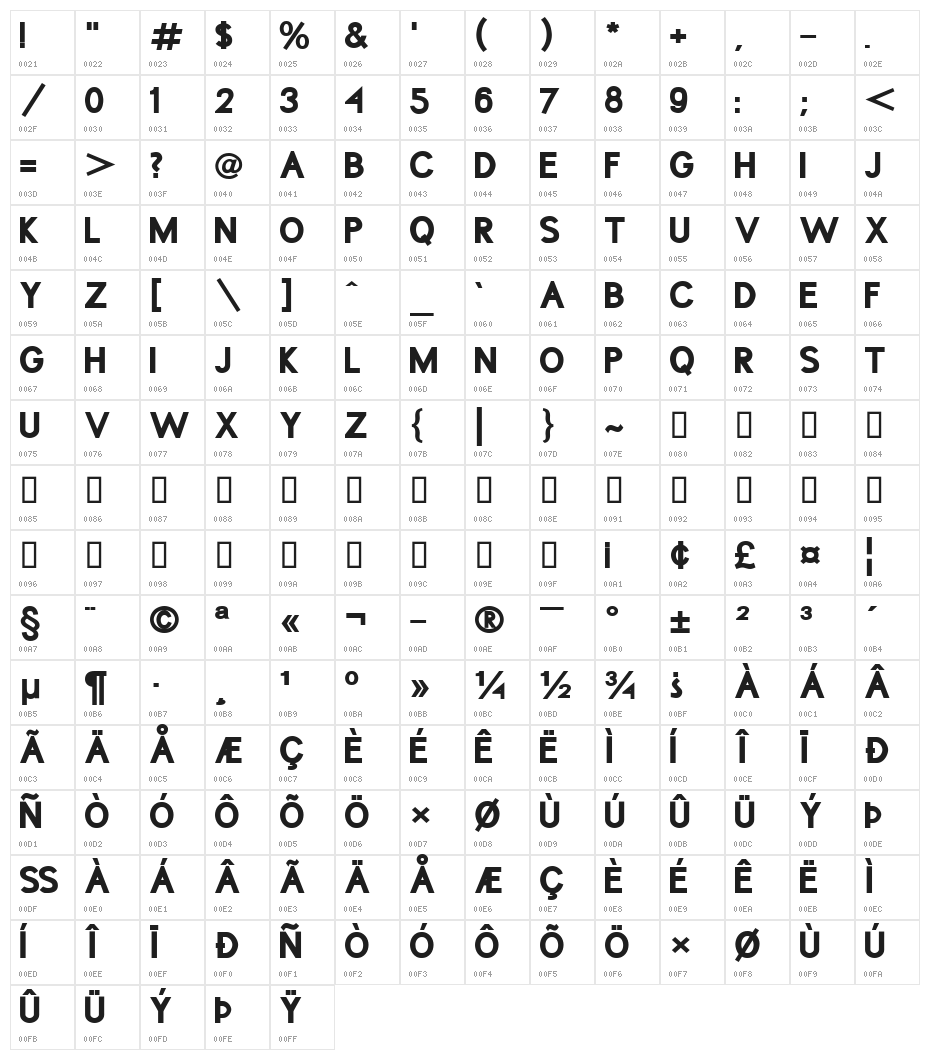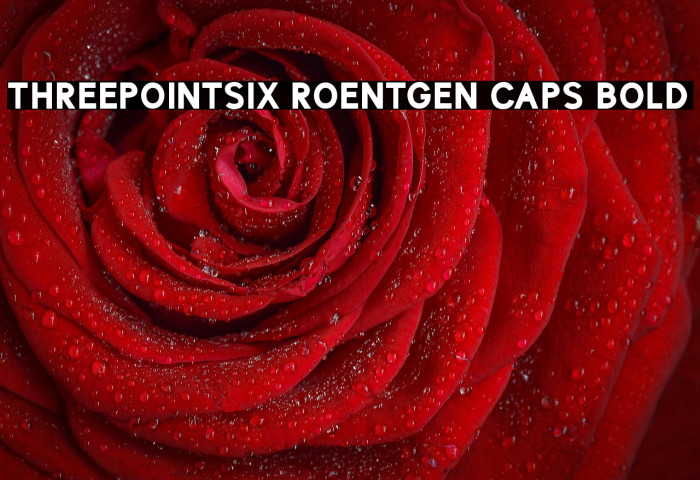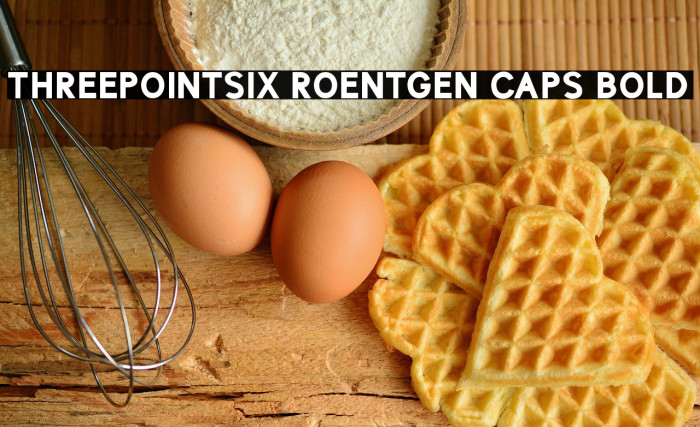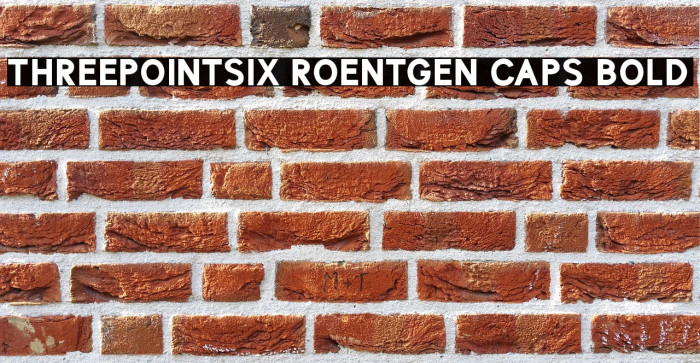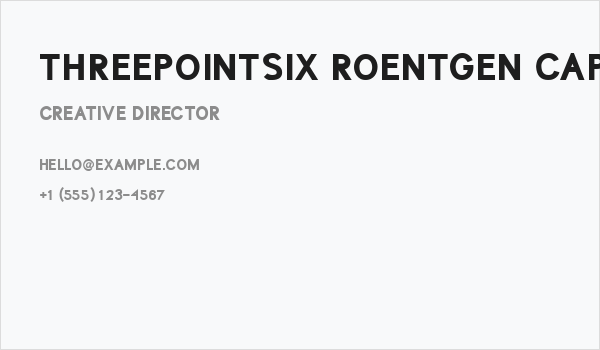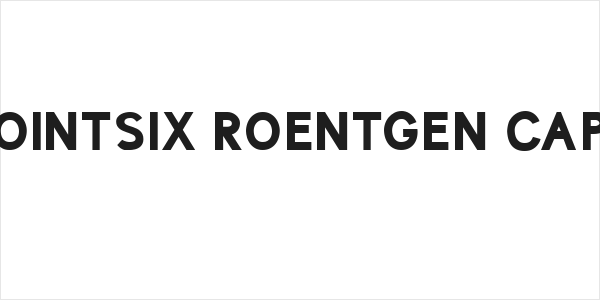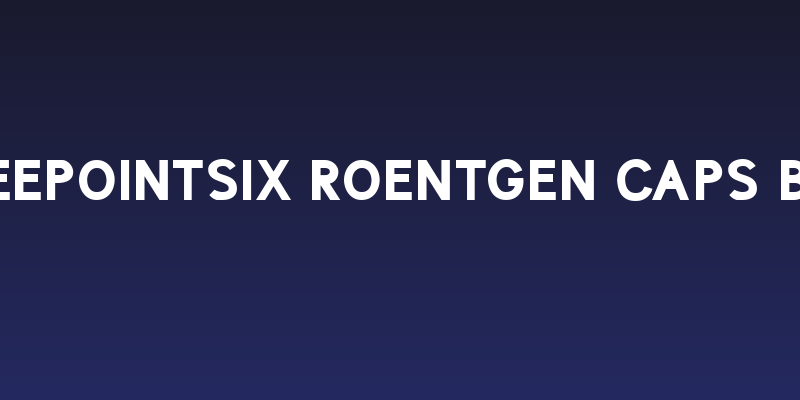
ThreePointSix Roentgen Caps Bold Font
ThreePointSix Roentgen Caps Bold Description
This font features bold, uppercase letters with a strong, geometric design. The characters are evenly spaced, providing a clean and modern appearance. The numbers and special characters maintain the same boldness and clarity, making them easily readable. The font's style is consistent across all characters, offering a cohesive look that is ideal for impactful headlines and attention-grabbing text. Its simplicity and strength make it suitable for a variety of design projects, from branding to advertising.
| Proposed Projects | Ideal for branding, advertising, headlines, and any project requiring a bold, modern look. |